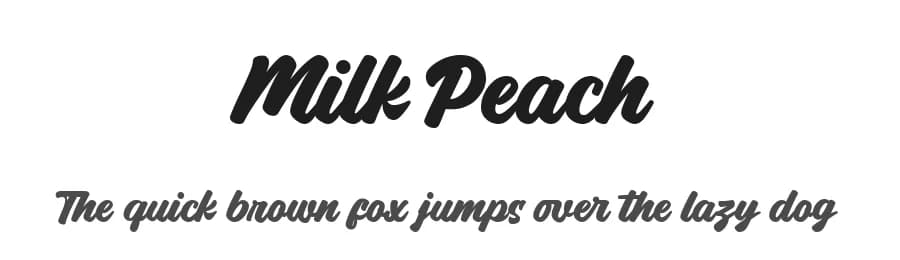
About Milk Peach Font
Milk Peach Specifications
| Font Family | Milk Peach Clean |
| Designer | Zain Fahroni |
Milk Peach Font is a script font that shines as a display or heading face. Pair it with a clean sans-serif or serif font for body text — the contrast creates a clear hierarchy while the two styles stay balanced and easy to read.
Milk Peach Font